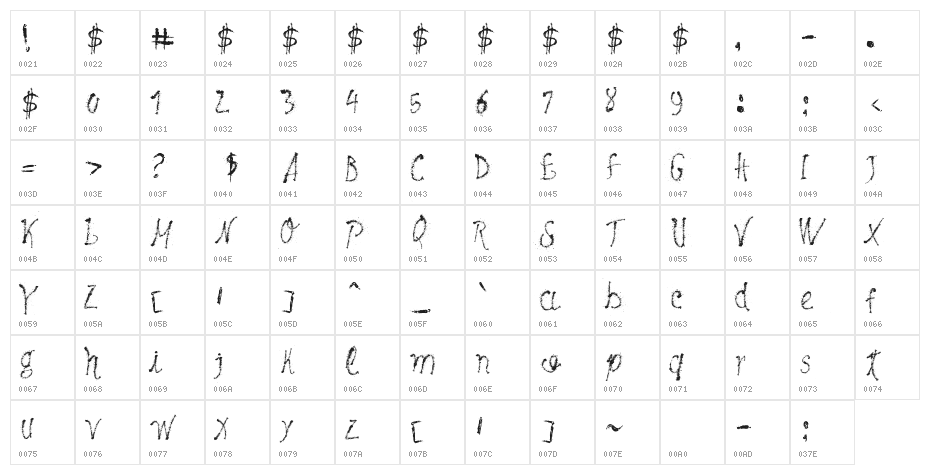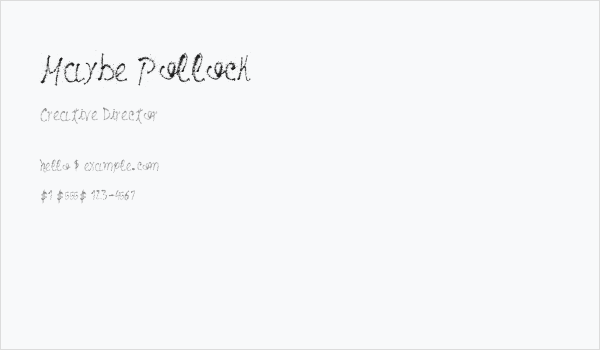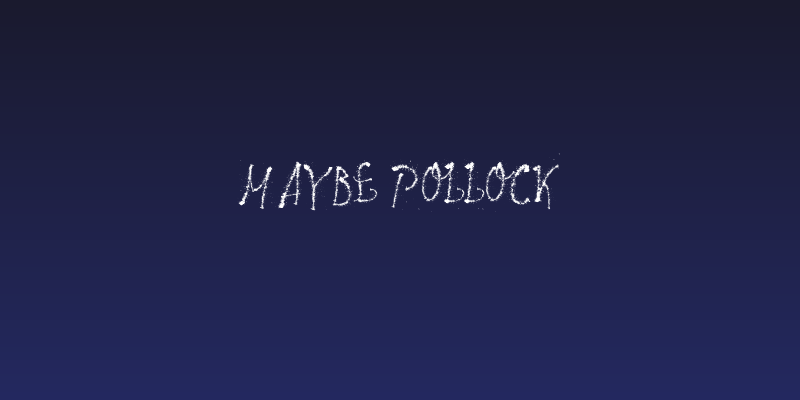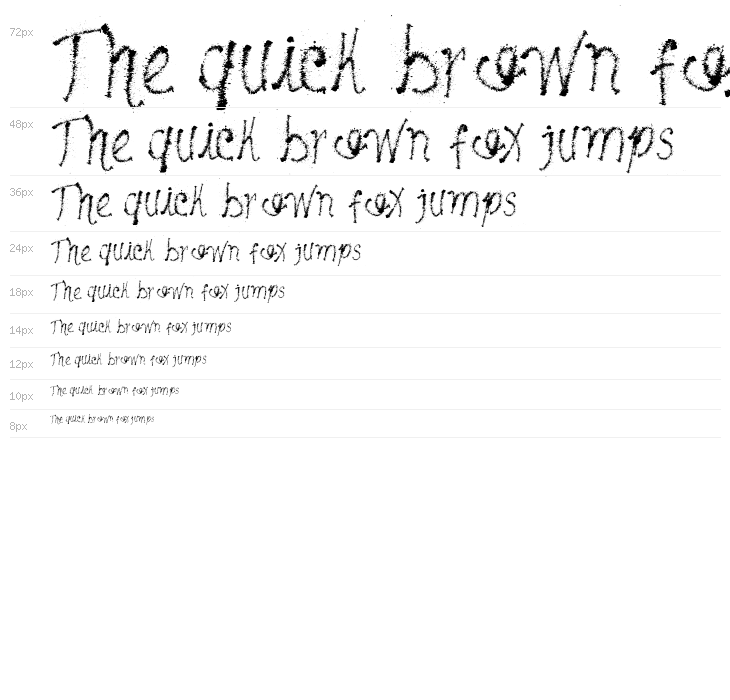
Maybe Pollock Font
| Stile generale | Artistic, Abstract, Creative |
| Caso d'uso | Logos, Posters, Artistic Projects |
| Progetti proposti | Ideal for art-related projects, creative branding, posters, and any design requiring a bold, artistic statement. |